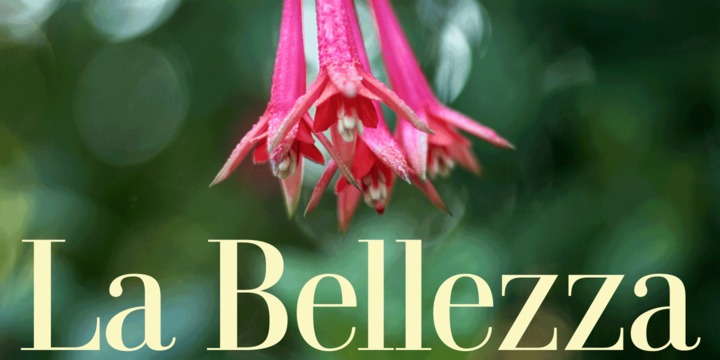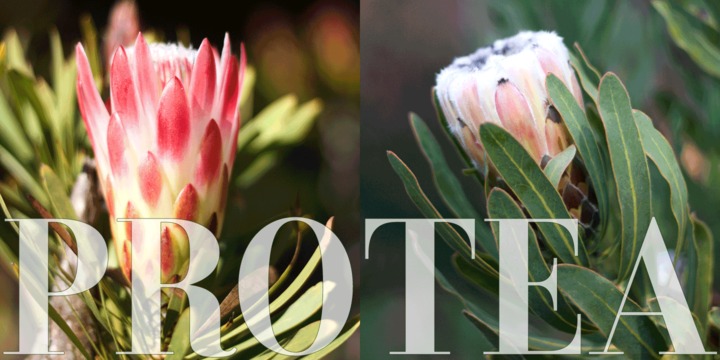
Dionisio Font Family
Dionisio, a CastleType original, takes its inspiration from one of the overlooked treasures of the CastleType library: Ransahoff. The latter is extremely condensed and very elegant. I particularly like its hairline slab serifs and cross-bars. I decided to use it as a starting point for a new design, but to make the proportions more classic and to make it more sensuous with gentler curves and bracketed cross-bar serifs.
| Designer Name: | CastleType |
| Classification: | Retro / Vintage Fonts, Serif Fonts, Slab Serif Fonts, Style / Aesthetic Fonts |